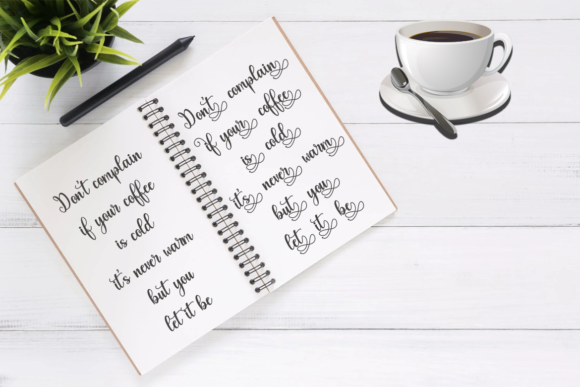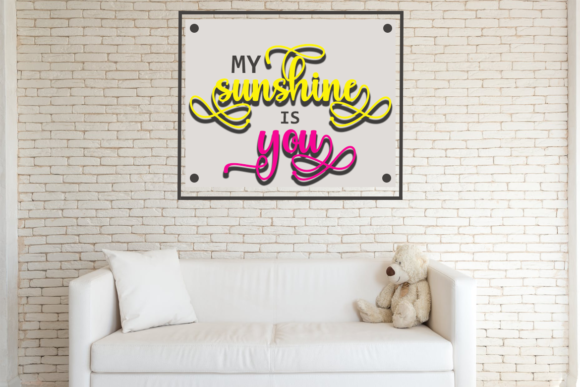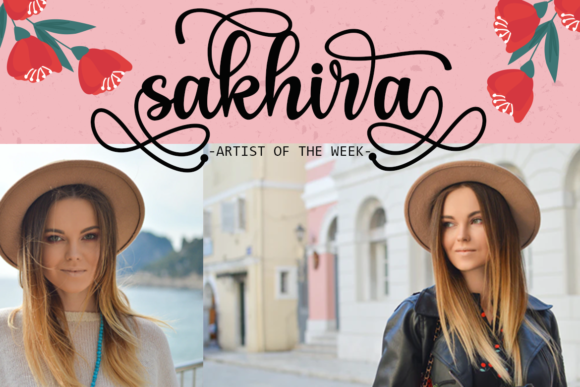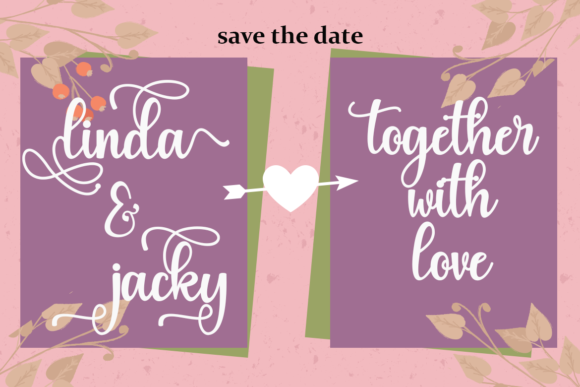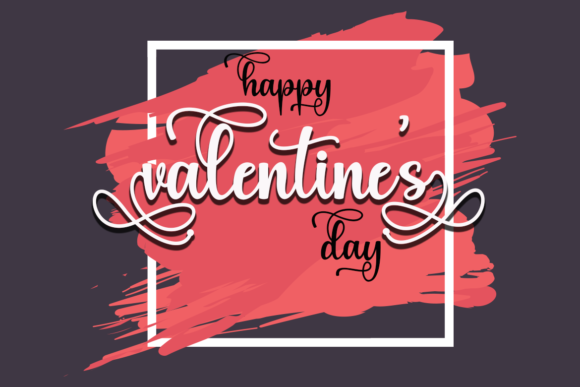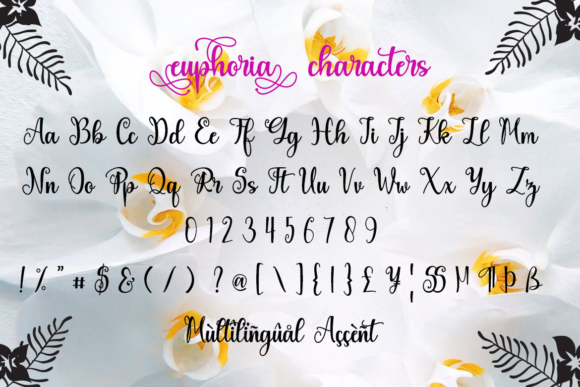
Unlock the Magic of Your Creativity with Euphoria Font
Have you ever sat down with a blank canvas, a blank page, or a blank screen, feeling like the ideas just aren’t flowing? You know, that moment when your mind is racing with possibilities, but the words just won’t come? That’s when the right tool can make all the difference.
Enter Euphoria Font, a delicate, elegant, and flowing handwritten font that can breathe life into even the most stagnant of ideas. This beautiful font is designed to add a touch of whimsy and personality to your most creative projects, from invitations and greeting cards to social media graphics and advertisements.
As a designer, you know how valuable it is to have the right tools at your fingertips. That’s why Euphoria Font is a must-have in your arsenal. With its PUA encoding, you can easily access all of the glyphs and swashes, giving you the freedom to create truly unique and eye-catching designs.
Euphoria Font Key Features
- Unique Characteristics: The font features a distinctive, hand-drawn aesthetic with intricate details and flourishes, making it ideal for creative and artistic projects.
Euphoria Font Review
Euphoria Font is a beautifully designed font that has gained a lot of attention in recent times. It’s no surprise, given its unique blend of modern and retro elements. Here’s what I think about this font.
- Unique design aesthetic: Euphoria Font has a distinct look that’s both futuristic and nostalgic at the same time.
- Wide range of applications: This font can be used for a variety of projects, from posters to digital interfaces.
- High-quality typography: The font’s letterforms are well-designed and easy to read.
- Limited character set: Euphoria Font’s character set is relatively small, which may limit its use in certain contexts.
- Not ideal for small text: The font’s large x-height can make it difficult to read in small sizes.
Overall, I think Euphoria Font is a great addition to any designer’s toolkit. While it has some limitations, its unique design and high-quality typography make it a compelling choice for a wide range of projects. Just be sure to use it wisely and consider the context in which it will be used.
Tips for Getting the Most Out of Euphoria Font
Use Euphoria font for titles, headings, and emphasis to add visual interest to your designs.
Experiment with different font sizes and styles to create a cohesive look.
Combine Euphoria font with other fonts to create a unique and eye-catching design.
Common Use Cases for Euphoria Font
Euphoria font is ideal for:
Typography-based designs, such as posters, flyers, and brochures.
Emphasis and highlighting text in presentations, reports, and documents.
Creating a bold and modern aesthetic in branding and marketing materials.